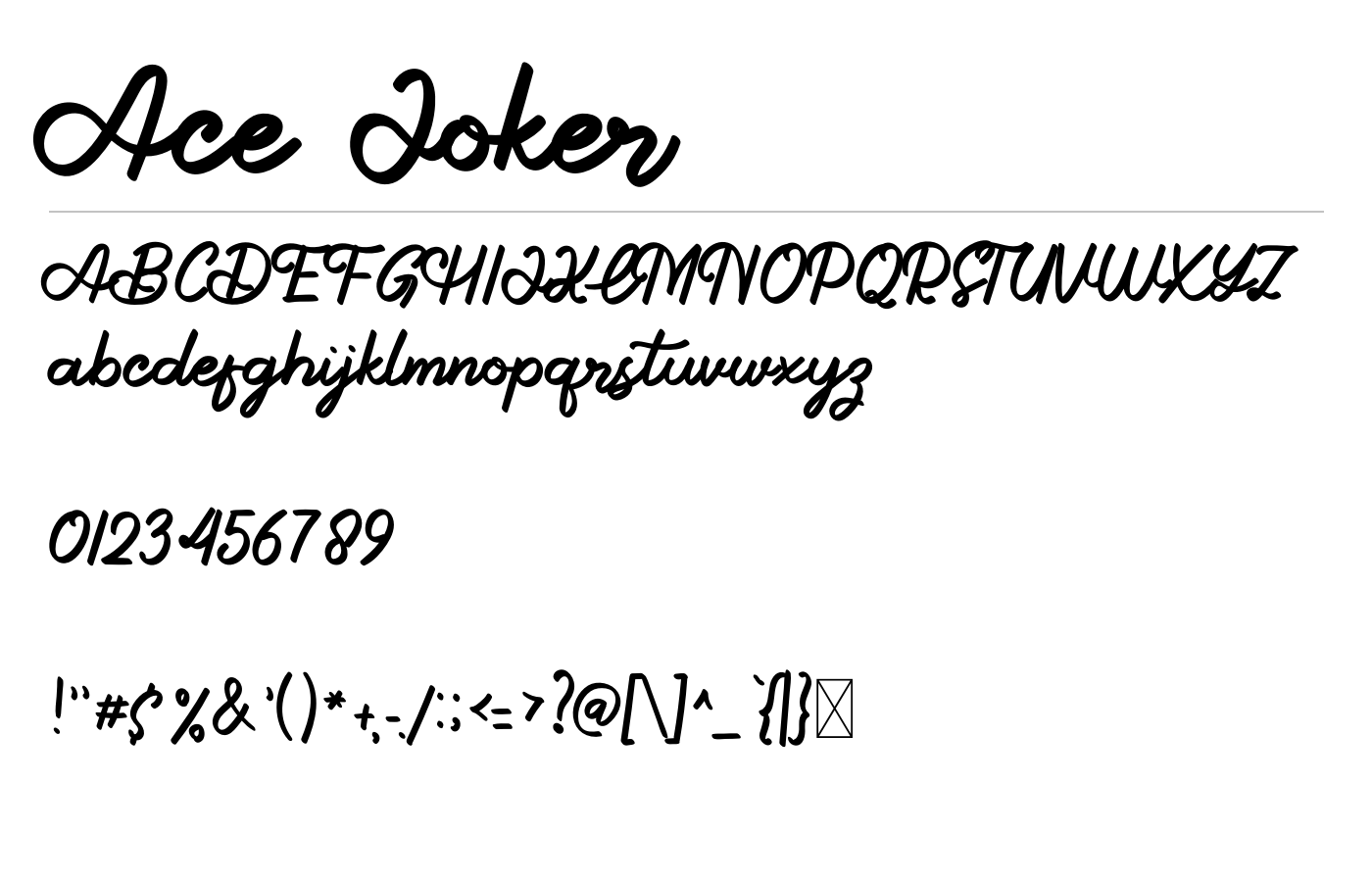
Ace Joker is a playful and elegant script font with a smooth, handwritten style that features medium contrast and a casual flow. Its slightly condensed letterforms with unique curls and loops make it ideal for adding a personal, stylish touch to branding, invitations, and creative headlines. This font works best where a warm and approachable yet classy vibe is needed, blending charm and readability seamlessly.
Ace Joker Font